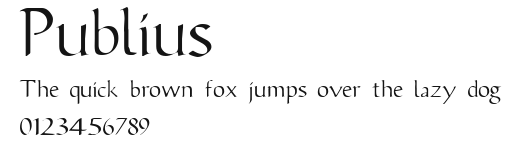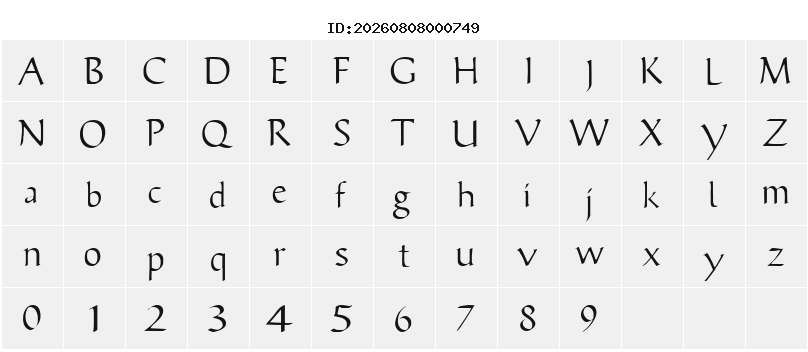
• Font Name: Publius
• Full Font Name: Publius
• Copyright: Copyright 1993, David F. Nalle Publius v. 2.0 - Scriptorium Font Library
Publius.ttf is a modern, elegant sans-serif font designed for ultimate readability and visual harmony. Perfect for branding, headlines, web design, and print materials.